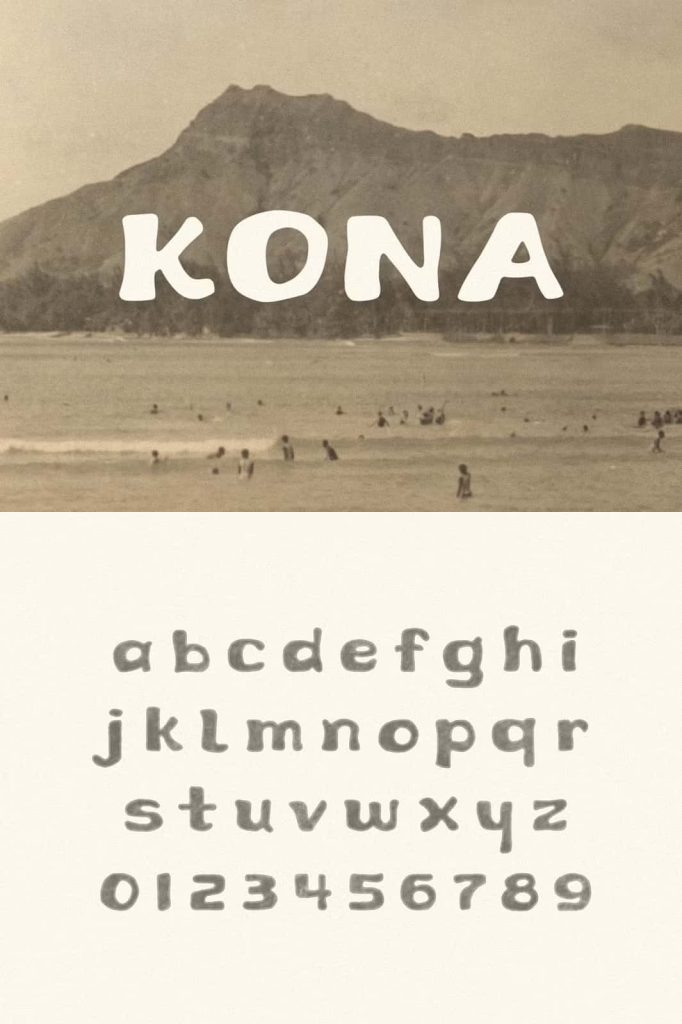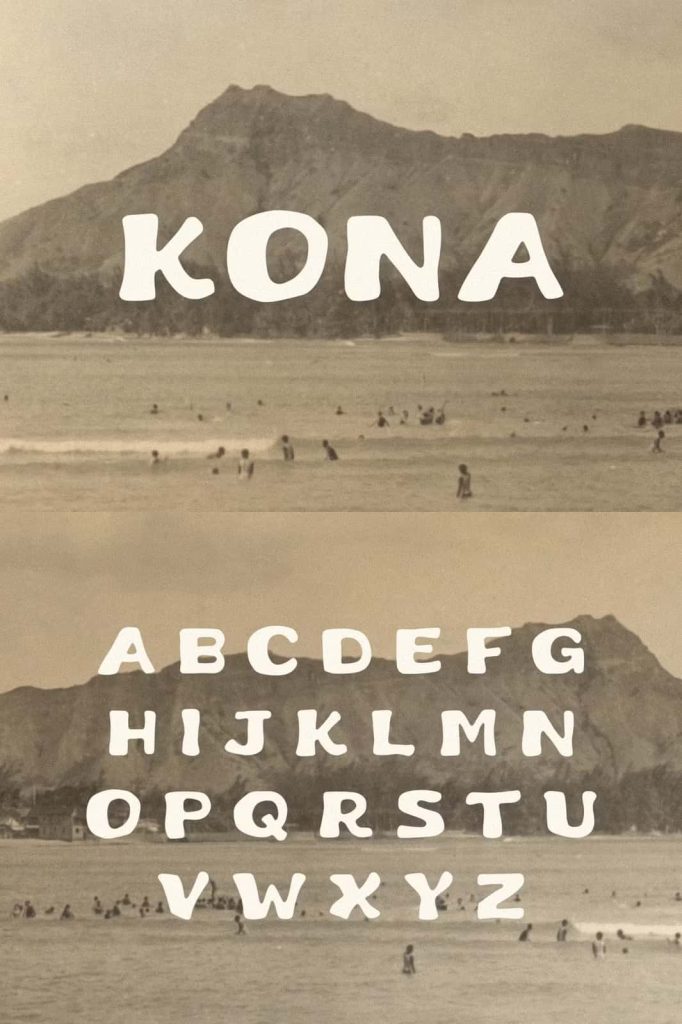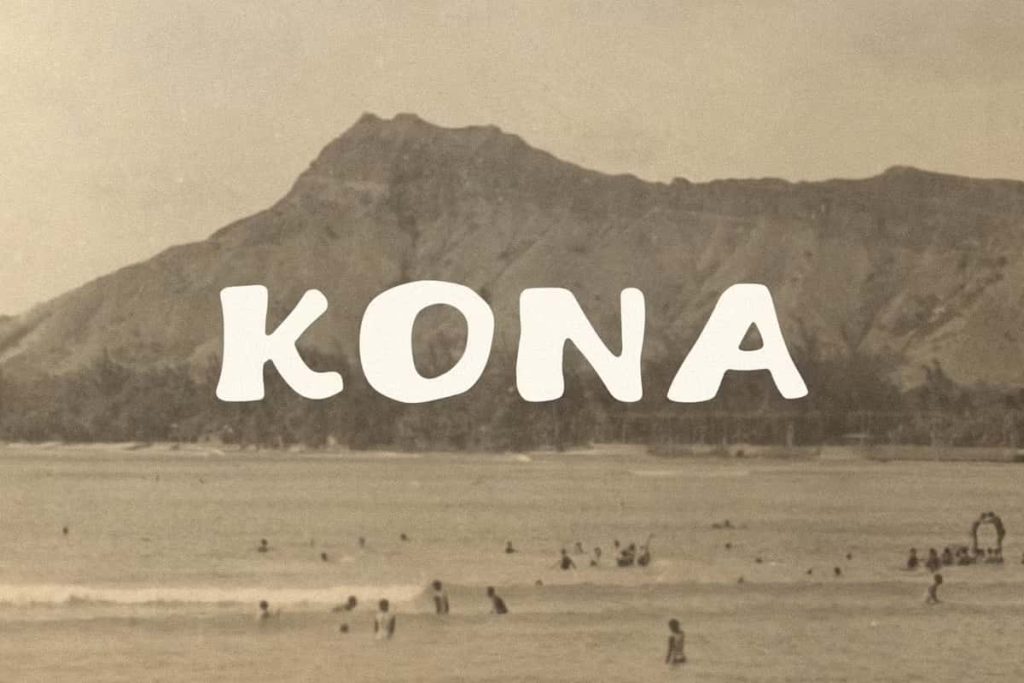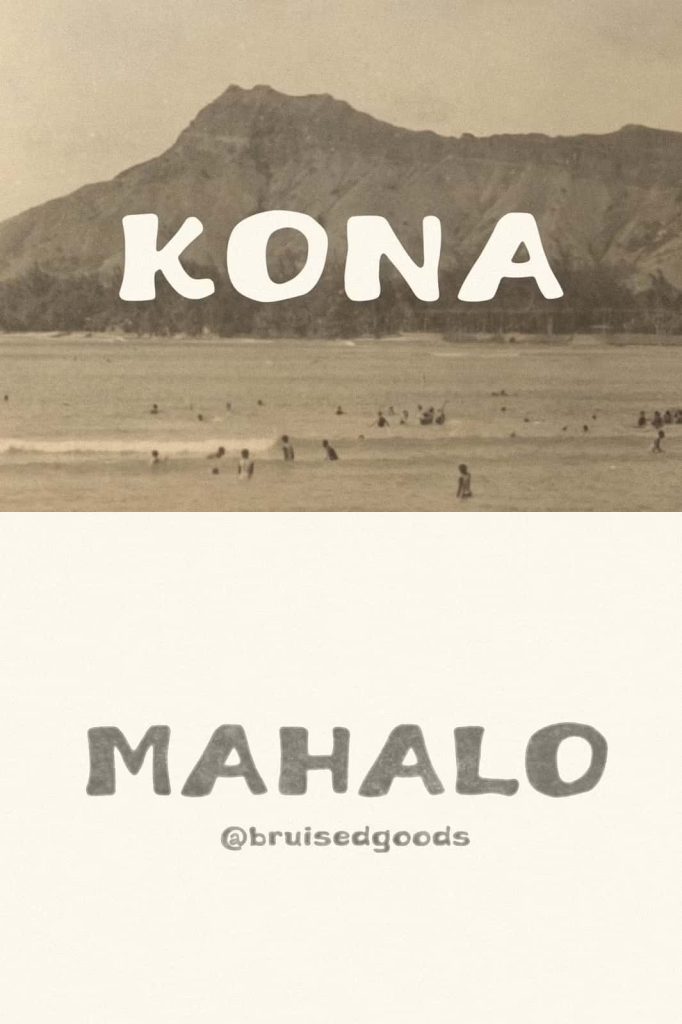
KONA – A Handcrafted Display Font Made with Aloha
KONA is a handcrafted display font made with aloha by Lauren Kilbane. Designed to bring warmth, personality, and a handmade character to creative projects, KONA offers a distinctive typographic style for designers who want their work to feel authentic and memorable. Its expressive display forms can transform ordinary words into engaging visual statements, making it a versatile choice for both personal and commercial design projects.
Inspired by the relaxed spirit of handcrafted lettering, KONA brings an approachable quality to typography. It works beautifully when you want to move away from overly polished digital lettering and introduce a more personal, creative touch. Whether you are developing a brand identity, designing an invitation, creating apparel graphics, or preparing packaging artwork, KONA can help your message stand out with character.
With its strong display presence, KONA performs particularly well when typography takes center stage. Use it for short headlines, names, slogans, product titles, promotional messages, and other prominent text where you want to make an immediate impression.
A Display Font Full of Handmade Character
KONA brings the visual appeal of handcrafted lettering into a flexible digital typeface. Its display-oriented design allows you to create typography that feels expressive rather than generic. Every headline can become a central part of the artwork, helping you establish a stronger connection between the words and the overall visual concept.
Handcrafted typography often works especially well for brands and creative projects that value personality. KONA can help communicate an independent, artistic, relaxed, and approachable identity. Instead of blending into the background, the font gives your words enough presence to become an important design element.
Use KONA on its own for a bold typographic statement or combine it with a simple supporting font to create contrast. A clean secondary typeface can provide practical information while KONA handles the visual impact of your main message.
Perfect for Logos and Branding
KONA provides a strong foundation for memorable logo and branding projects. Its handcrafted personality can give a brand name an individual appearance while helping the identity feel more human and approachable.
Use KONA for logos, wordmarks, brand slogans, badges, product names, and promotional graphics. It works especially well for businesses that want to communicate creativity, craftsmanship, lifestyle, hospitality, or a relaxed atmosphere.
When developing a complete identity, use KONA consistently across key touchpoints such as packaging, signage, menus, merchandise, social media graphics, and promotional materials. This consistency can help reinforce brand recognition and create a cohesive visual system.
Bring Personality to Apparel and Merchandise
KONA is also an excellent choice for apparel and merchandise design. Its display character can create eye-catching graphics for T-shirts, sweatshirts, tote bags, caps, posters, stickers, and other branded products.
Use short phrases, names, slogans, or decorative statements to create strong merchandise graphics. The handcrafted quality can give apparel designs a more authentic and creative appearance, particularly when paired with simple illustrations or supporting graphic elements.
KONA can also help independent brands create merchandise that feels connected to their overall identity. Apply the same lettering style to apparel, packaging, promotional cards, and signage to create a recognizable visual language.
Ideal for Packaging and Product Design
Packaging needs to capture attention quickly, and expressive typography can play a major role in that process. KONA can create strong product names and headlines that immediately communicate personality.
Use it for food packaging, lifestyle products, handmade goods, specialty products, labels, boxes, bags, and promotional packaging. Its handcrafted appearance can complement products that emphasize creativity, quality, individuality, and personal craftsmanship.
For a balanced package design, use KONA for the main product name and pair it with a straightforward supporting font for ingredients, descriptions, product information, or other practical details. This approach lets the display lettering command attention without compromising readability.
Create Inviting Menus and Hospitality Graphics
KONA naturally suits menus and hospitality projects because its expressive personality can create a welcoming atmosphere. Use it for restaurant names, menu headings, featured dishes, café signage, event menus, promotional boards, and special announcements.
The font can help establish a relaxed and creative visual direction for cafés, restaurants, food businesses, event spaces, and lifestyle brands. Combine it with simple layouts and complementary typography to create menus that feel personal and thoughtfully designed.
Whether you are building a new brand, creating an album cover, designing a memorable invitation, or producing merchandise with a handmade feel, KONA gives your words a strong visual voice. Its display character helps headlines stand out, while its approachable personality keeps designs feeling inviting and authentic.
Choose KONA when your project needs more than ordinary typography. Give your designs a handcrafted presence, a creative attitude, and a little aloha.